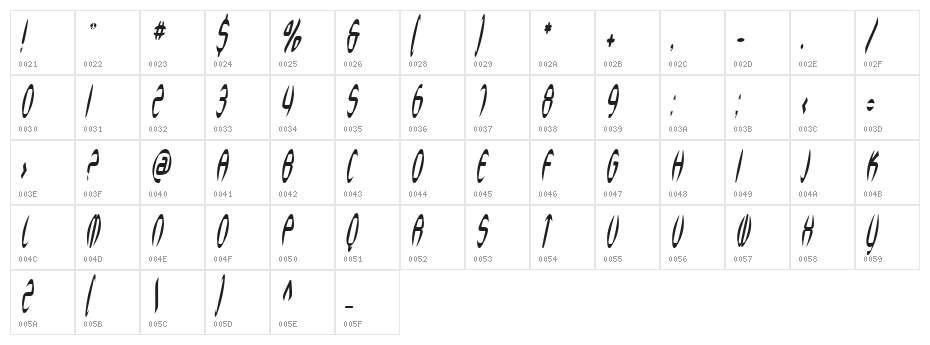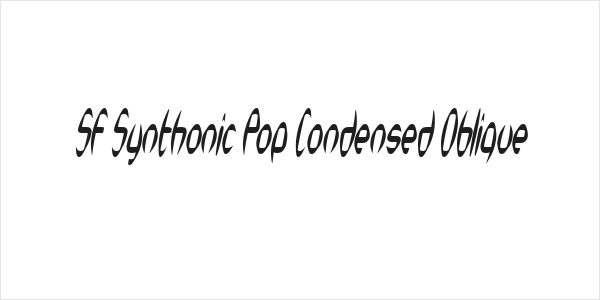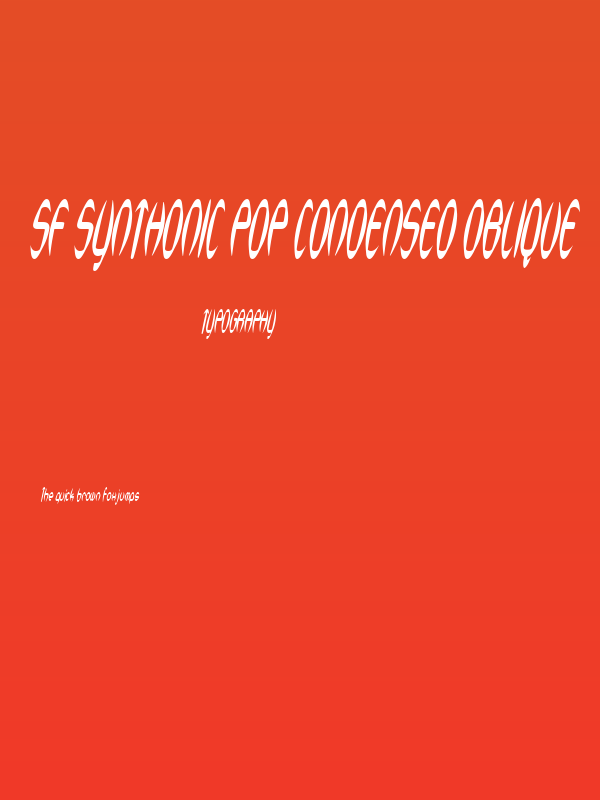
SF Synthonic Pop Condensed Oblique Font
SF Synthonic Pop Condensed Oblique Description
This font features a futuristic and dynamic style, characterized by its condensed and oblique letterforms. The characters are sleek and elongated, with sharp angles and a sense of motion, making it ideal for projects that require a modern and energetic feel. The uppercase and lowercase letters maintain a consistent style, with a slight slant that enhances the font's dynamic appearance. The numerals and special characters are designed to match the overall aesthetic, ensuring a cohesive look across all text elements. This font is perfect for use in digital media, posters, and branding that aims to convey a sense of innovation and forward-thinking.
Proposed ProjectsIdeal for digital media, posters, branding, and projects requiring a modern, energetic feel.